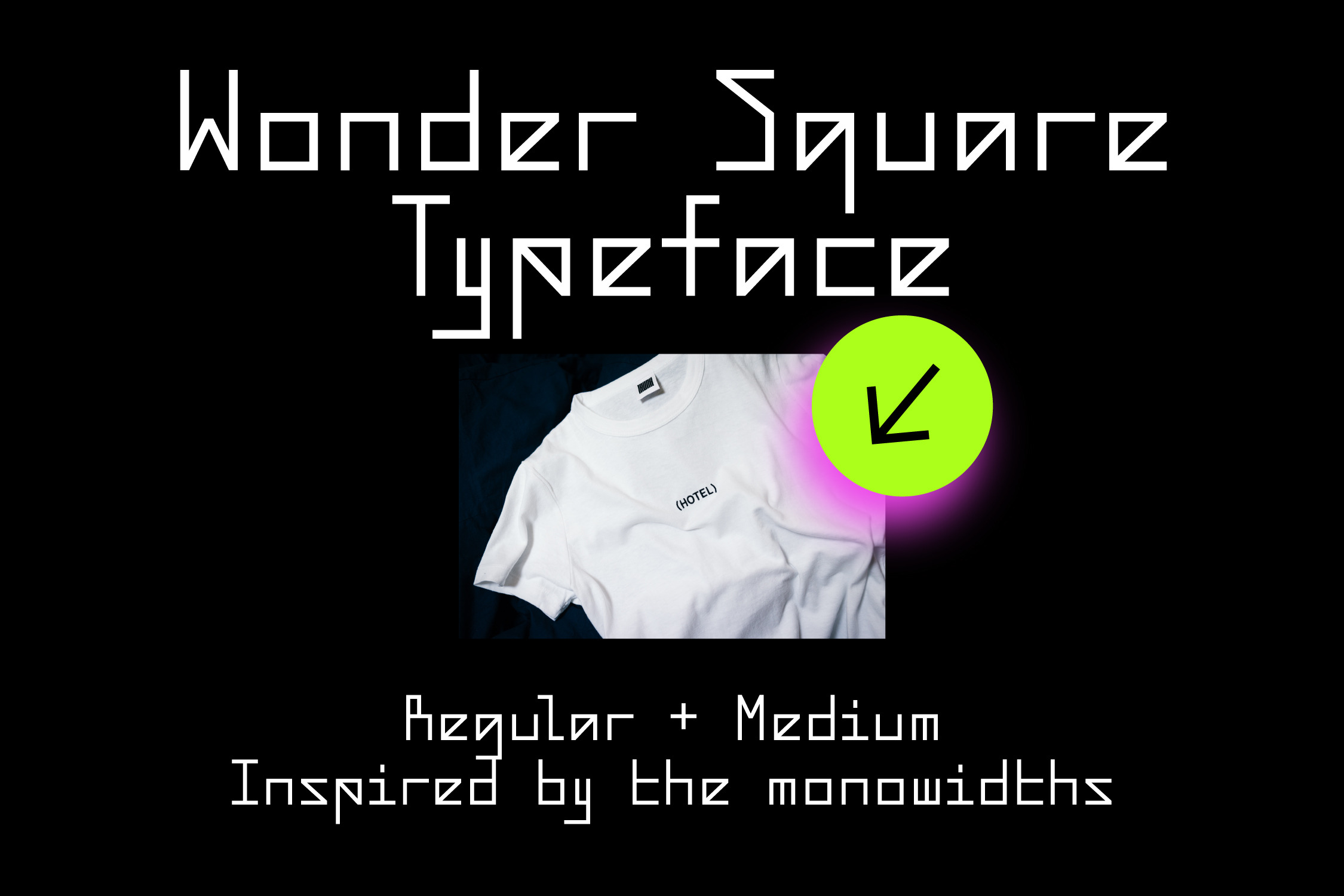
Wonder Square
WONDER SQUARE is a typeface inspired by mono width shapes and proportions. It's geometric, structured and grid based. The limitations make Wonder Square's character. It's balanced, enough readable, enough weird and very wearable.
- Latin + Cyrillic
- Uppercase, lowercase, numerals, symbols and punctuation
- 2 Weights: Regular + Medium